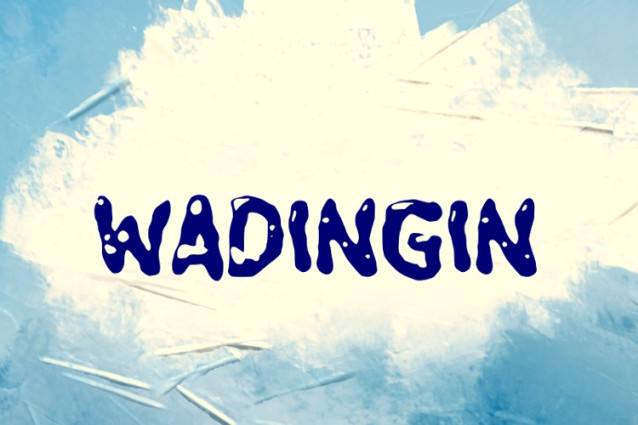
Wadingin Font
Wadingin Font, suitable for any design needs : logo, branding, modern advertising design, logos, poster quote, book / cover Title, editorial design, website / blog, card, t-shirts, and any hand-lettered needs.